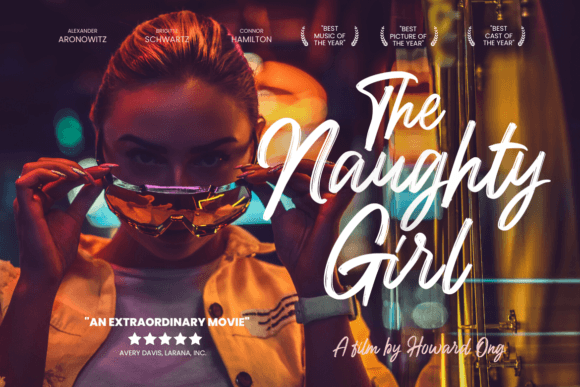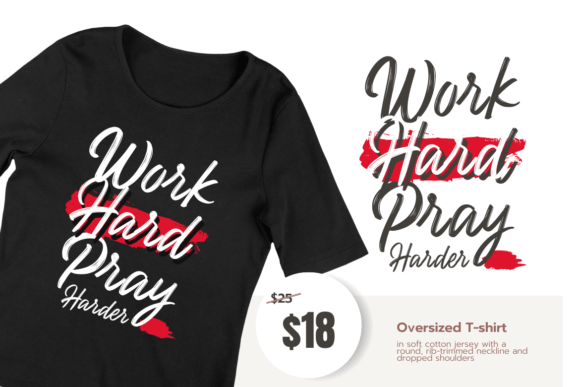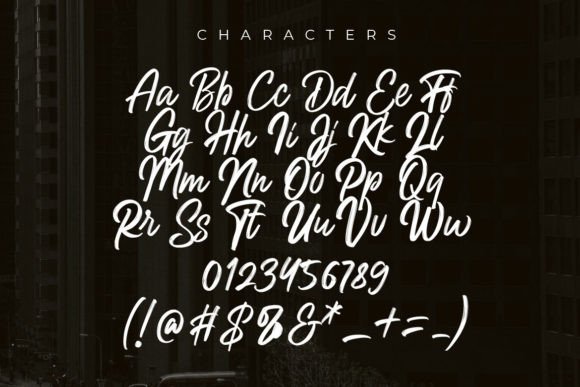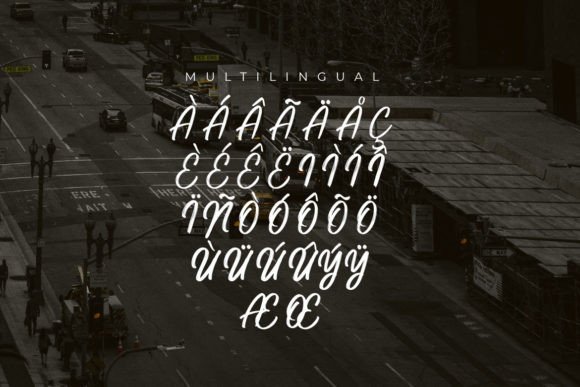
Jackelyn Script Font
Jackelyn Script Font: Modern Handwriting for Stylish Designs
“Jackelyn Script” is a cool handwritten brush font that adds style to your projects. It’s great for Instagram posts and DIY designs alike.
Key Features of Jackelyn Script Font
• Modern Style: Jackelyn Script combines contemporary flair with a handwritten look.
• Versatile Use: Perfect for social media and creative projects.
• Artistic Appeal: Turns ideas into eye-catching designs.
Ideal Applications
Social Media Graphics
Jackelyn Script’s cool style is perfect for creating engaging Instagram posts and other social media content.
DIY Projects
Use Jackelyn Script to add a stylish touch to your DIY creations, from handmade cards to home decor.
The font’s unique character makes it great for logo design and branding materials that need a modern edge.
Why Choose Jackelyn Script Font?
Jackelyn Script offers more than just good looks. Here’s why it stands out:
• Adds a contemporary feel to designs
• Works well for both digital and print projects
• Helps create memorable and stylish visuals
By using Jackelyn Script, you open up new design possibilities. Its modern style works well in many contexts, from website headers to greeting cards.
If you want a font that’s both modern and artistic, Jackelyn Script is a great choice. It’s perfect for adding a cool touch to your work, especially for projects that need a contemporary feel.
Explore how Jackelyn Script can transform your designs. From social media graphics to calligraphy-inspired projects, this font brings a fresh and stylish feel to your creations.